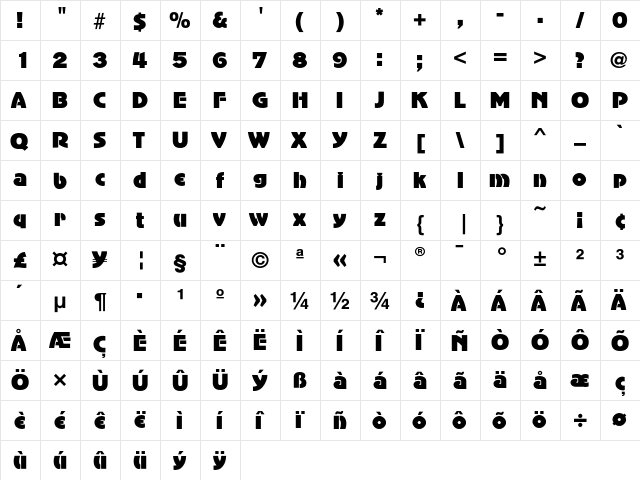
Advertisers Bld
Design Context for Advertisers Typeface
Advertisers is a composed and adaptable typeface that performs quietly and consistently across a wide range of design contexts.